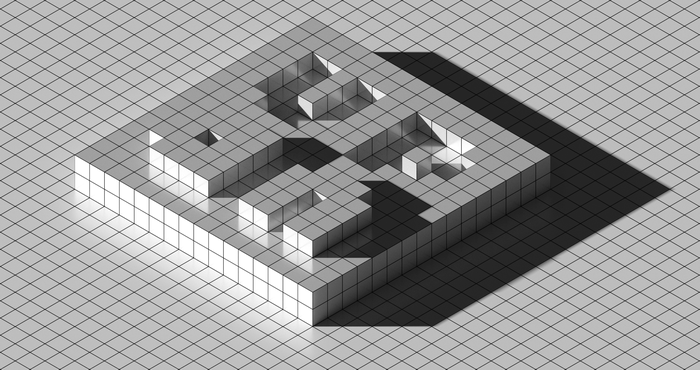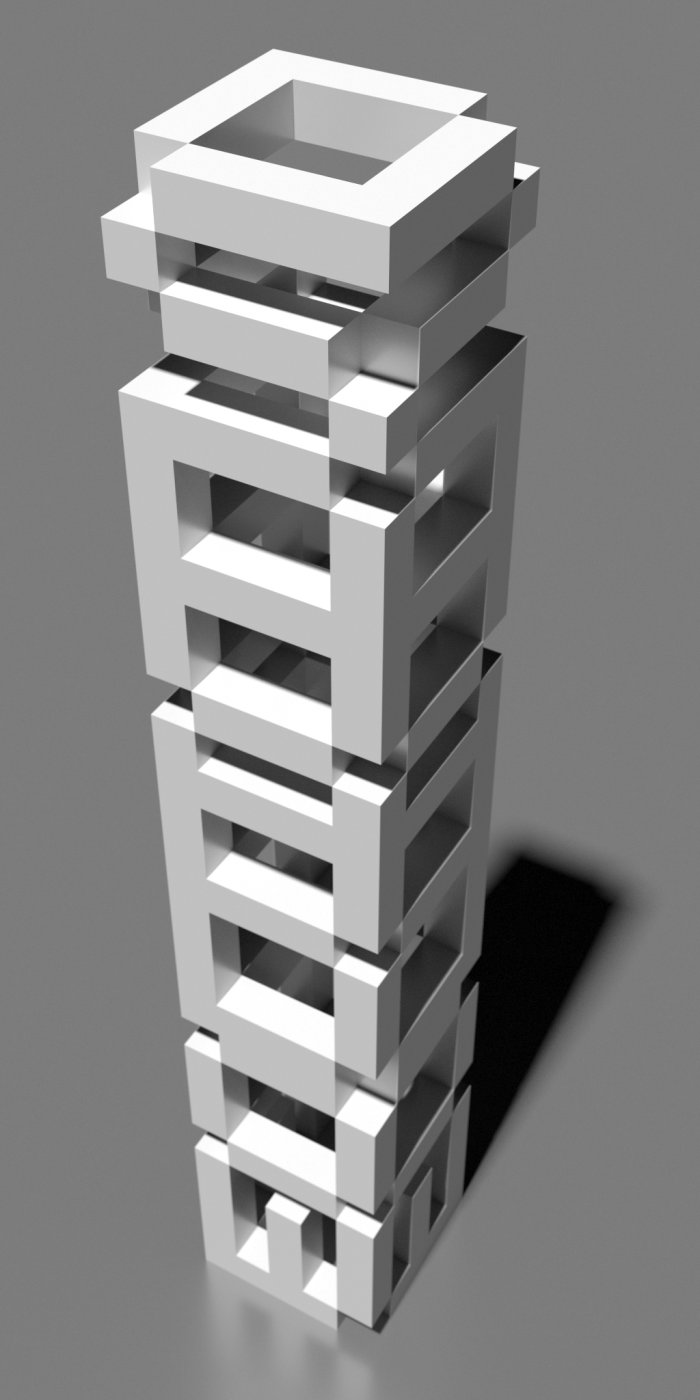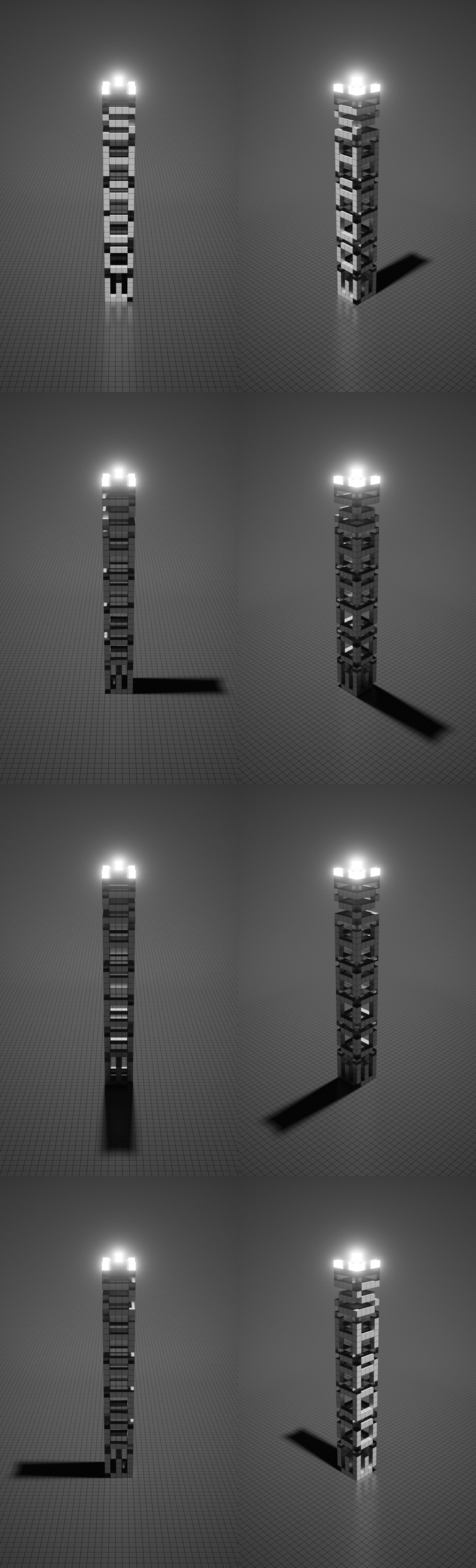
An interesting, chunky, design. good use of shadow. 10/10
North-East shadow. It could have been made of strict pixels (offset: x+1, y-1), even a tad longer, gradated…
@cablecomputer: “6 years” is almost nothing in 'my' project/mind… ;-) {I started '''working''' on my 'micro' fonts in the early 1990s (after plenty of disappointments in the early 1980s - you can e.g. search the word "font" on WOS and see the same quest today among the now somewhat older 8-bit coders, that is, actually 3-px wide characters before the spacing)}…
To stay on topic, I remember I coded in ZX Basic the carved style (Google) you get in your "Letter Shadow 5x5" (or a bumped effect reciprocally), simply after editing the variable system pointer of the default font address in the ZX Spectrum ROM (~95 'CHARS' vs only 21 'UDG'). It was in the 1980s and made of 8x8 blocks, thus without your cleaner diagonals. Nowadays, we call this a (dot-matrix based) graphical filter, I suppose, after e.g. Photoshop's popularized effects in the meantime.